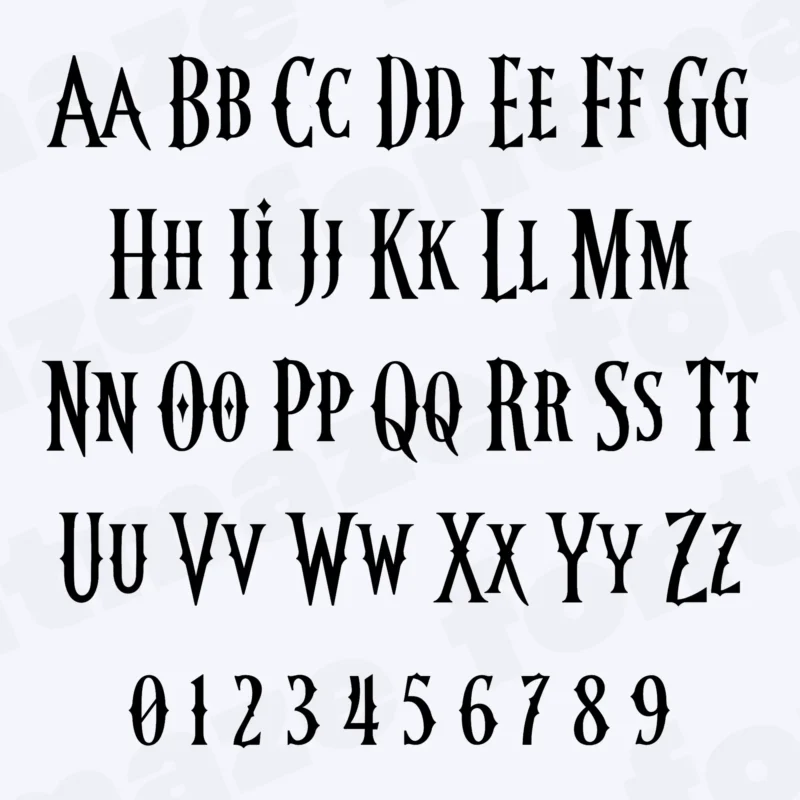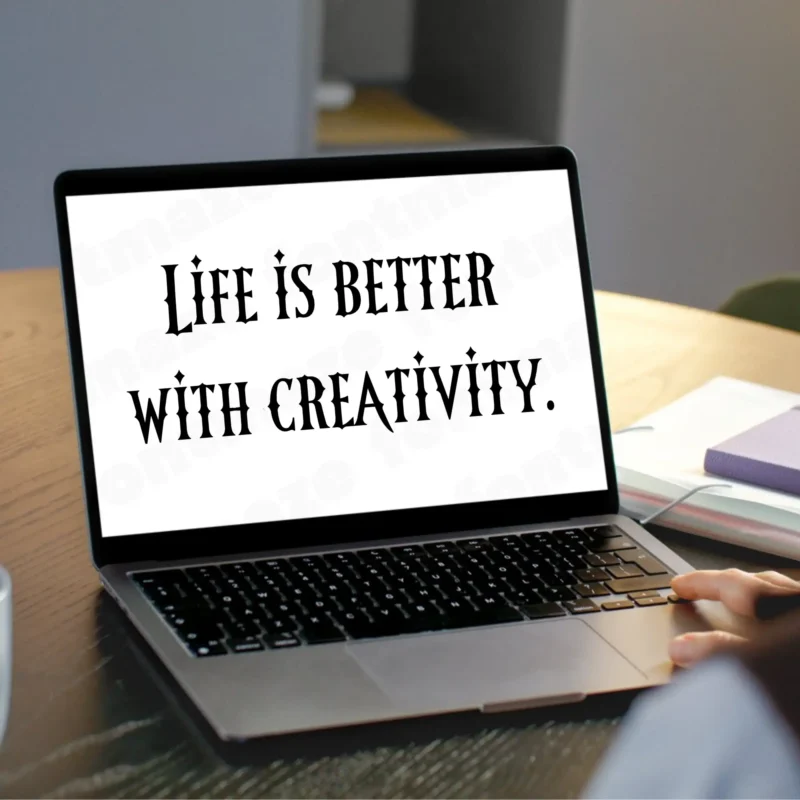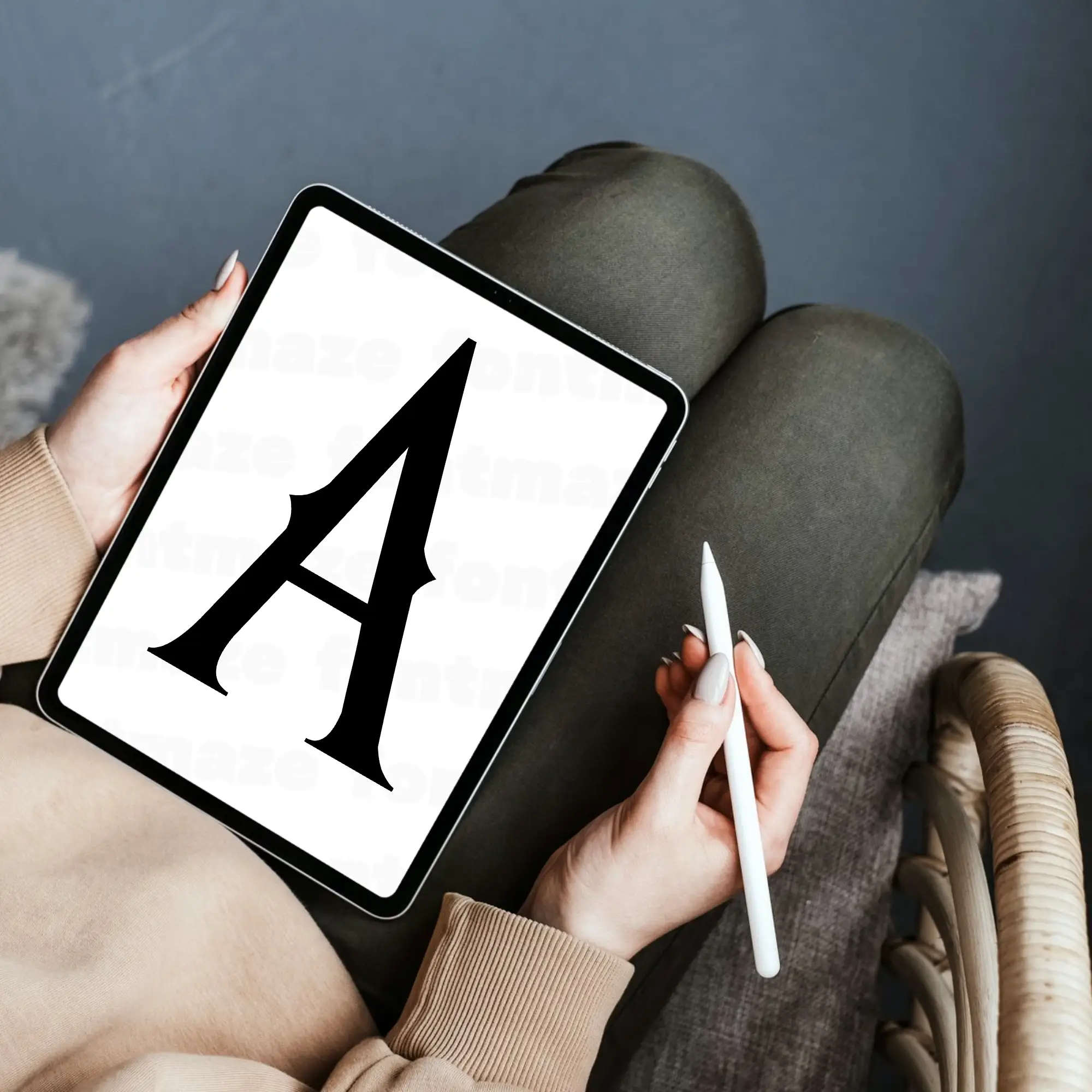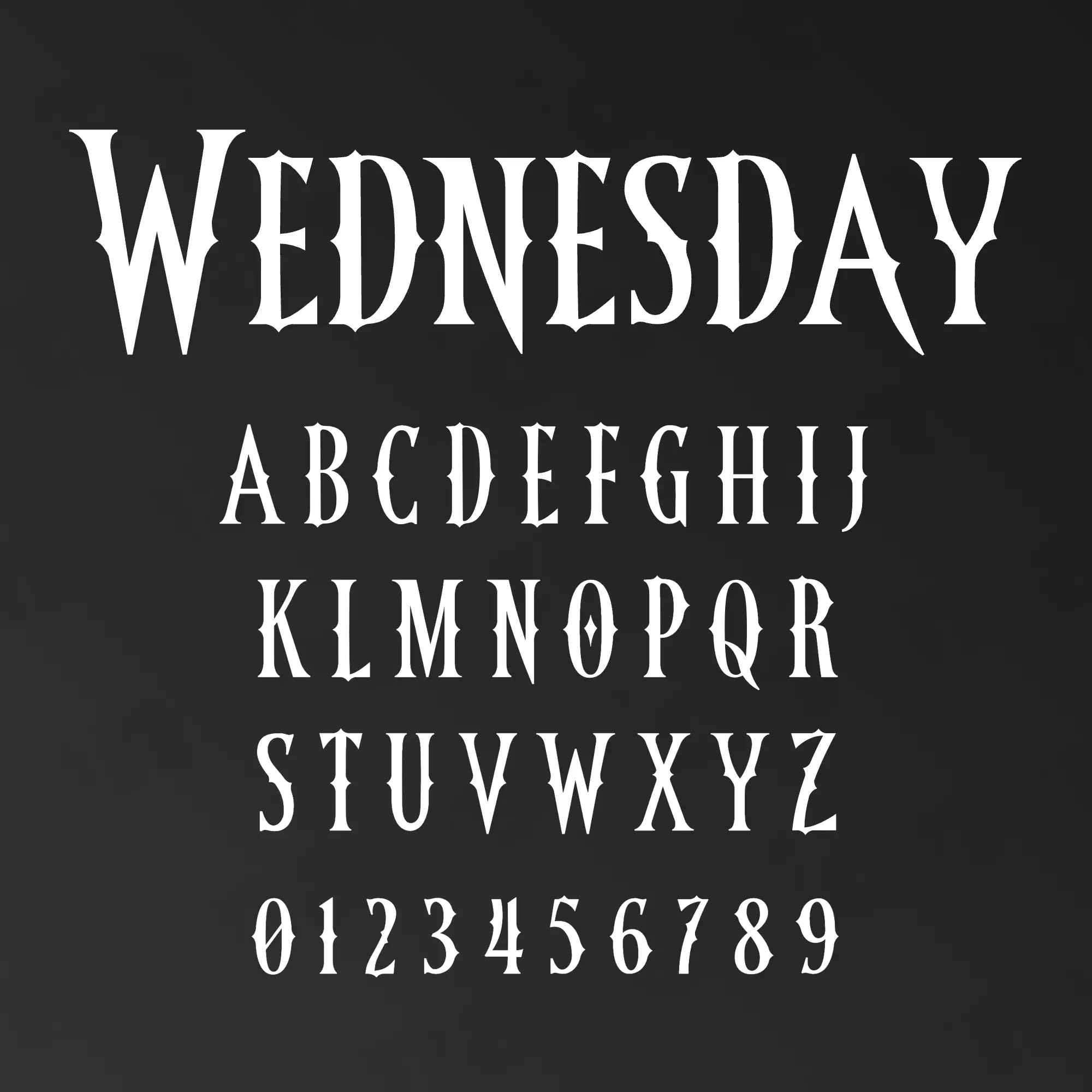
Our Wednesday Font, a Gothic Style Typeface
Make your next project stand out with our Wednesday font – a flexible and stylish typeface made for creators.
Handcrafted in our studio with care and attention to detail, the Wednesday font brings a unique, personal touch to your designs.
Preview showing all characters of the Wednesday font designed by FontMaze.
Wednesday Font